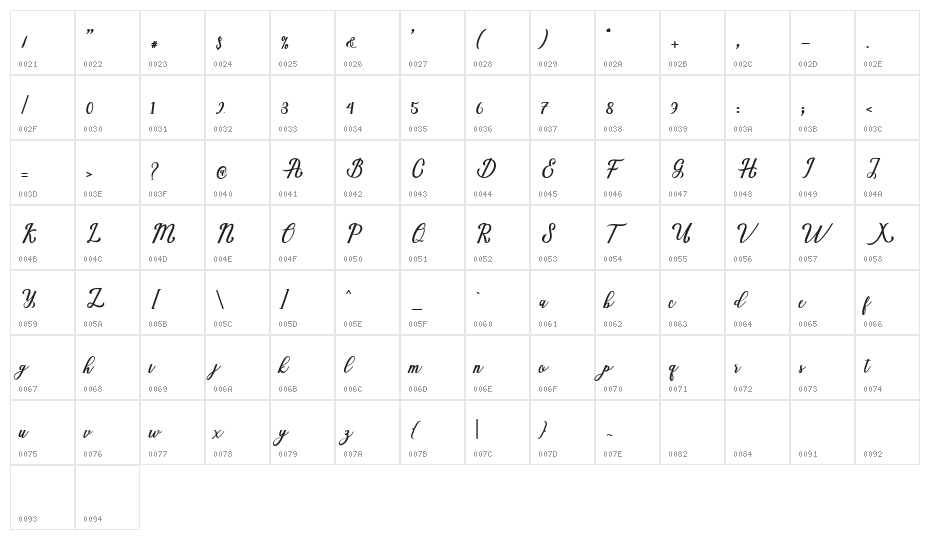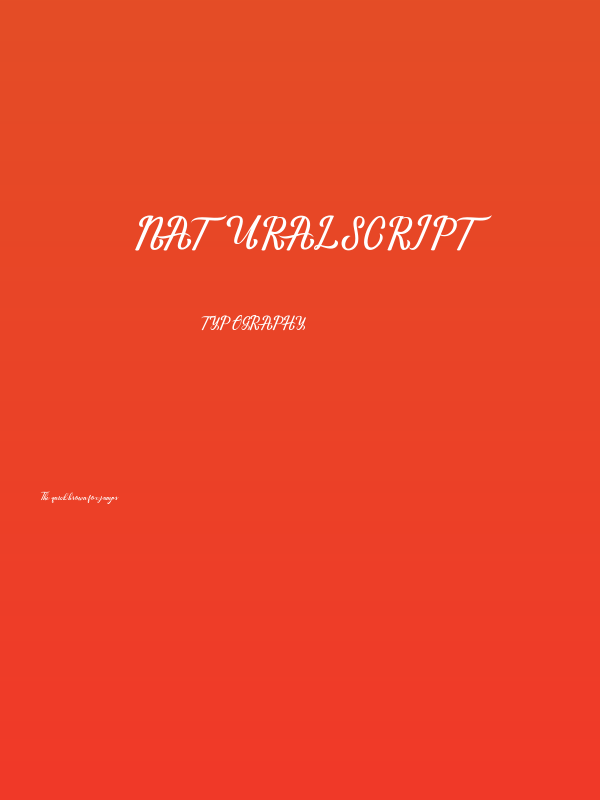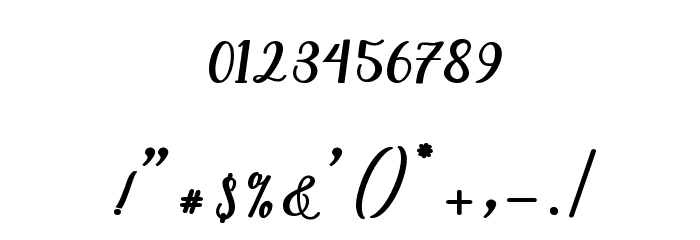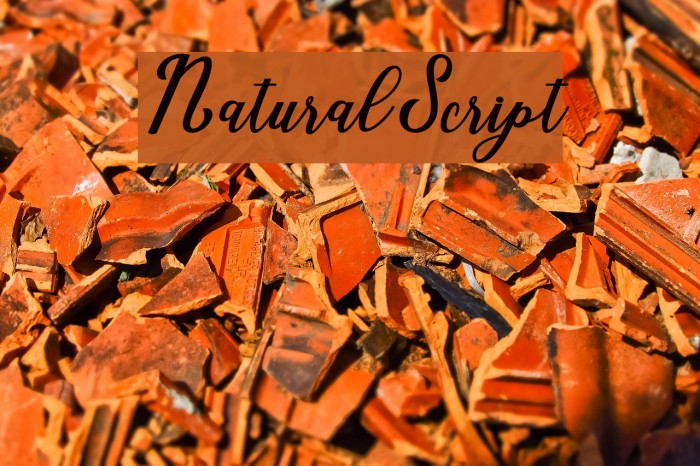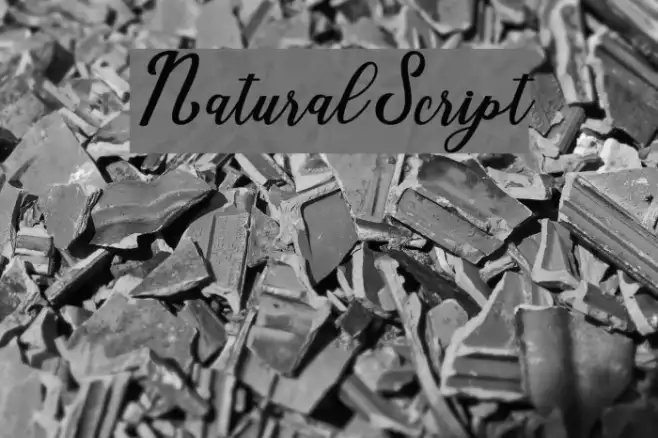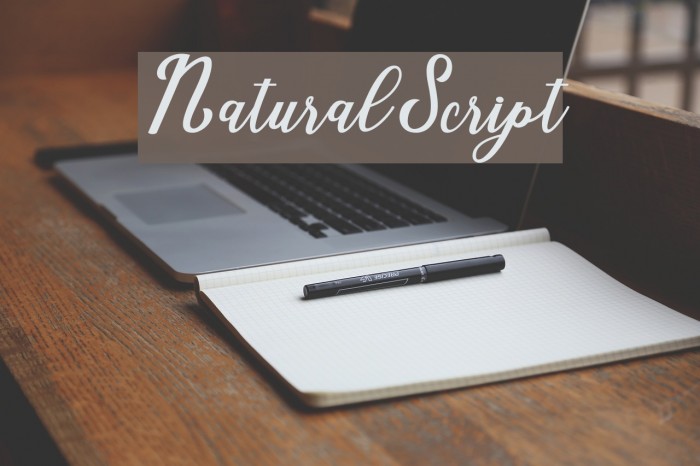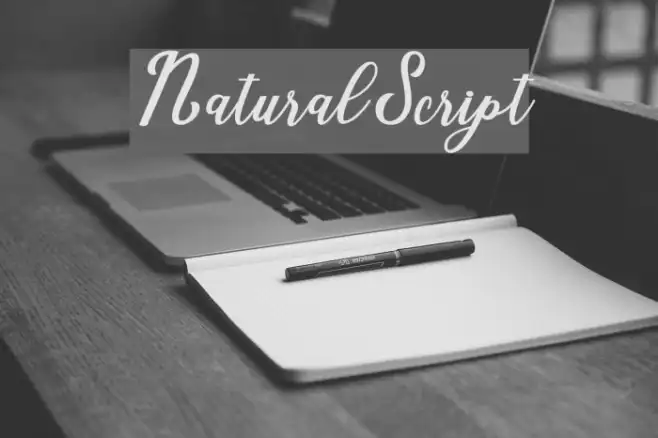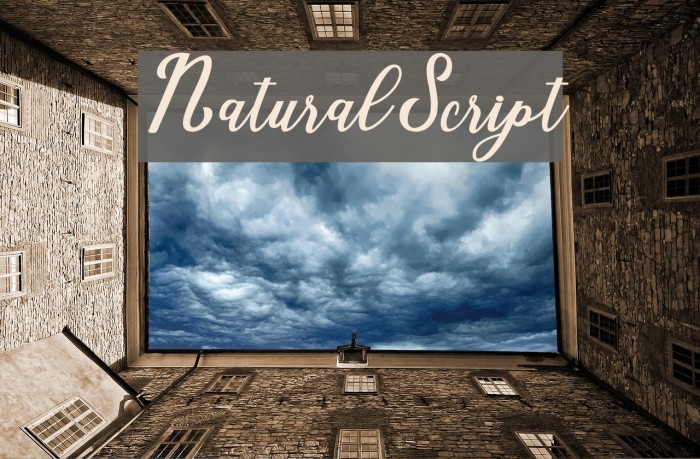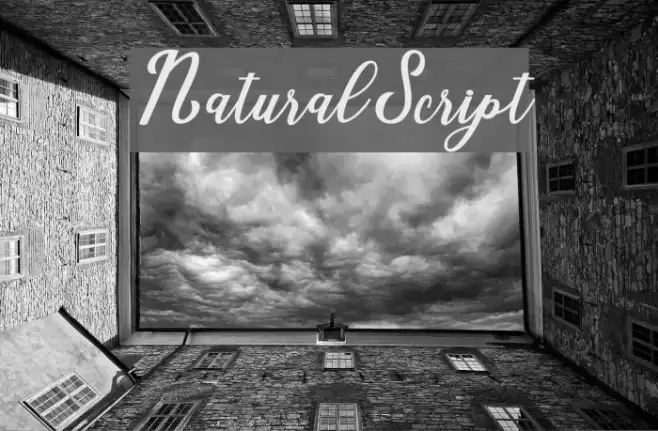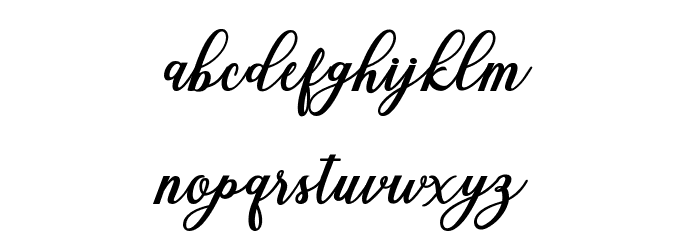
NaturalScript Font
NaturalScript Description
This elegant script font features flowing, cursive strokes that mimic natural handwriting. The uppercase letters are ornate, with sweeping curves and flourishes that add a touch of sophistication. The lowercase letters maintain a consistent style, offering a smooth transition between characters. Numbers and special characters are designed to complement the overall aesthetic, ensuring a cohesive look across all text elements. The font's graceful appearance makes it ideal for projects that require a personal or artistic touch.
| Proposed Projects | Ideal for wedding invitations, greeting cards, personal branding, and artistic projects. |